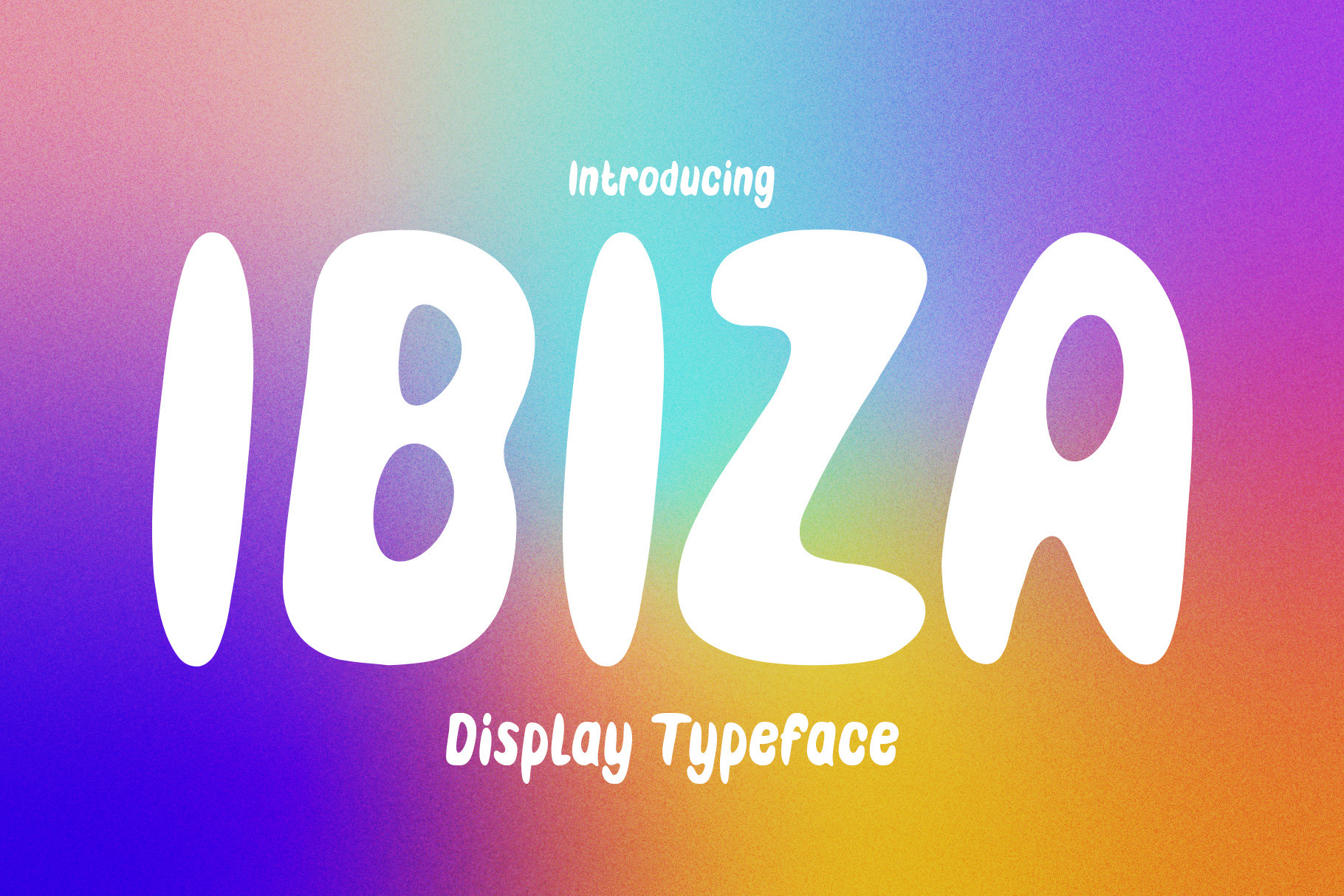
Ibiza is a psychedelic hand-drawn display font. It can be easily matched to an incredibly wide range of projects, from flyers, posters, and social media to children books, t-shirts, ad much more. It's smooth rounded corners allow the font to be legible even if stretched out. Enjoy!